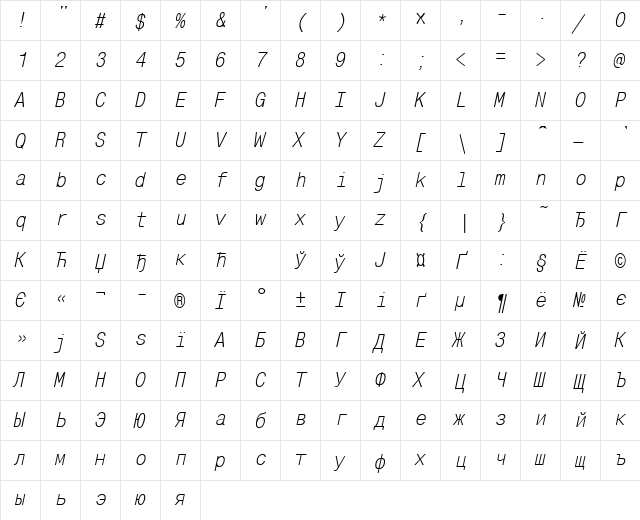
MonoCondensedCTT Italic
Design Context for MonoCondensedCTT Typeface
MonoCondensedCTT brings the precise, column-aligned rhythm of monospaced typography to designs that value technical clarity and systematic order. Its italic angle brings a sense of urgency and motion to the letterforms.